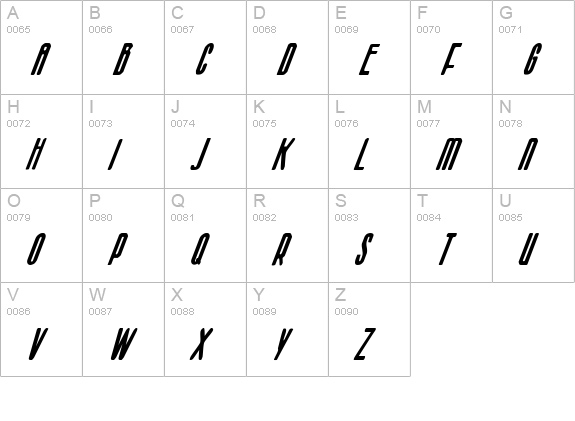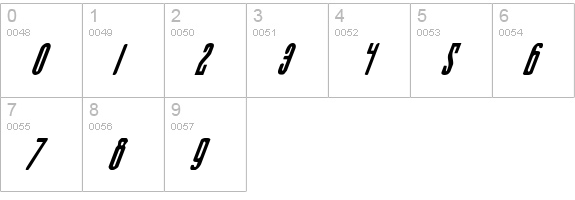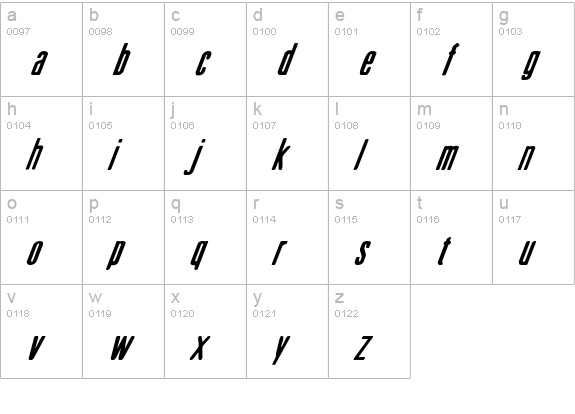
Sister Europe Italic is a distinctive, italic variant in the Sister typeface family \xE2\x80\x94 well suited to design and typography projects.
Sister Europe Italic font is a stylish and elegant typeface that exudes sophistication and charm. Its slanted design adds a touch of flair to any project, making it perfect for use in headings, logos, and other design elements. The crisp lines and unique letter shapes give Sister Europe Italic a modern and sleek look that is sure to make your text stand out. What's even better is that Sister Europe Italic font is available for free download at FontsMarket.com. This means you can add this beautiful typeface to your collection without any cost, making it a valuable addition to your design toolkit. Whether you're working on a personal project or a professional design, Sister Europe Italic font is a versatile and eye-catching choice that will elevate your work to the next level. Download it today and see the difference it can make in your designs!